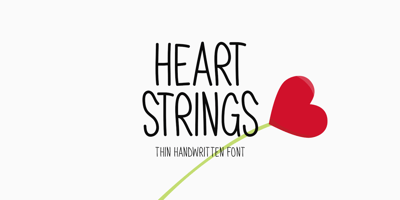
Heart Strings Font Family was designed by Md Shohail Bhuian and published by Seemly Fonts. Heart Strings contains 1 styles and family package options. Heart Strings, a charming and warm handwritten font, brings a delightful touch to designs centered around Valentine’s Day. Its simplicity and distinctive style make it a perfect match for a wide range of creative projects. Let your imagination run wild—there’s no limit to the sweetness this font can add!Uppercase